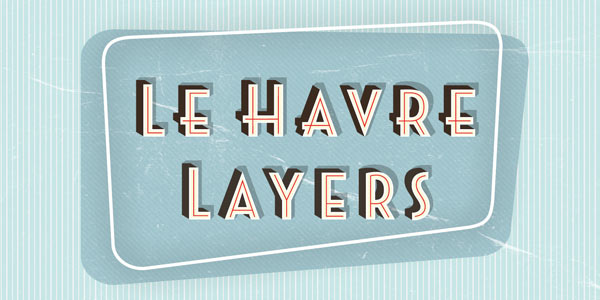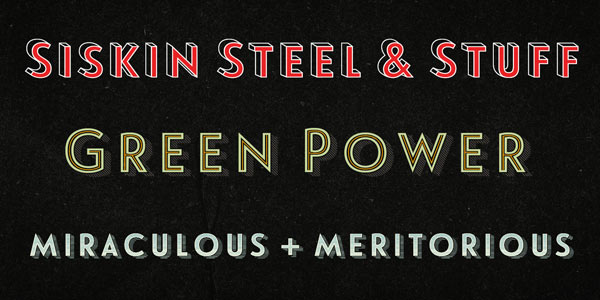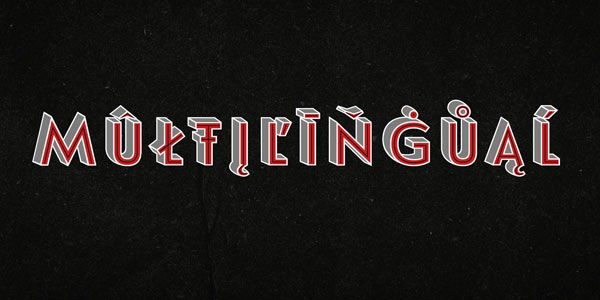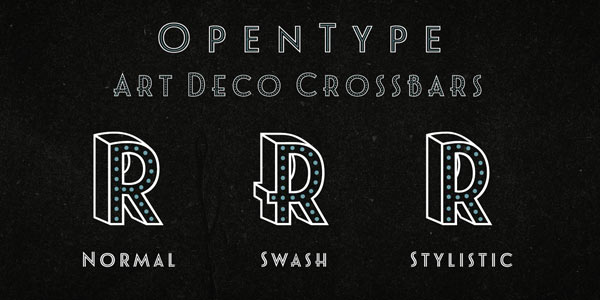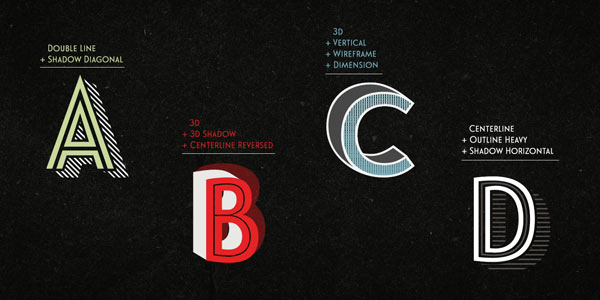
Le Havre Layers – Stylistic Type Family.
Le Havre Layers is a charming vintage inspired layered font family with numerous stylistic possibilities. The versatile typeface was designed in 2013 by Jeremy Dooley (Font Publisher: Insigne). Achieve different effects by layering these styles. The effects ranging from different 3D styles and dotted centerlines to several shadow variations. Le Havre Layers is inspired by vintage signage fonts from the 1930s to the 1960s. The geometric and art deco curves offer a striking typeface.